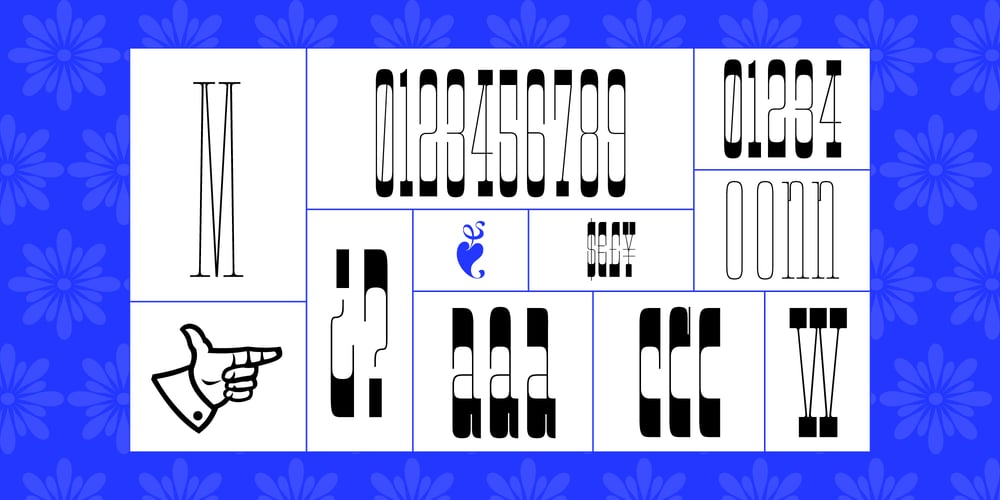
Extra C Variable Font Family was designed by Sandra García and published by Tipastype. Extra C Variable contains 1 styles and family package options. It is an Extra Condensed, Extra Light, Extra experimental and Extra display font. Extra C is a fun font that doesn’t take itself too seriously. Ideal for those who need a font with great character and personality but at the same time a delicate touch in their graphic pieces.